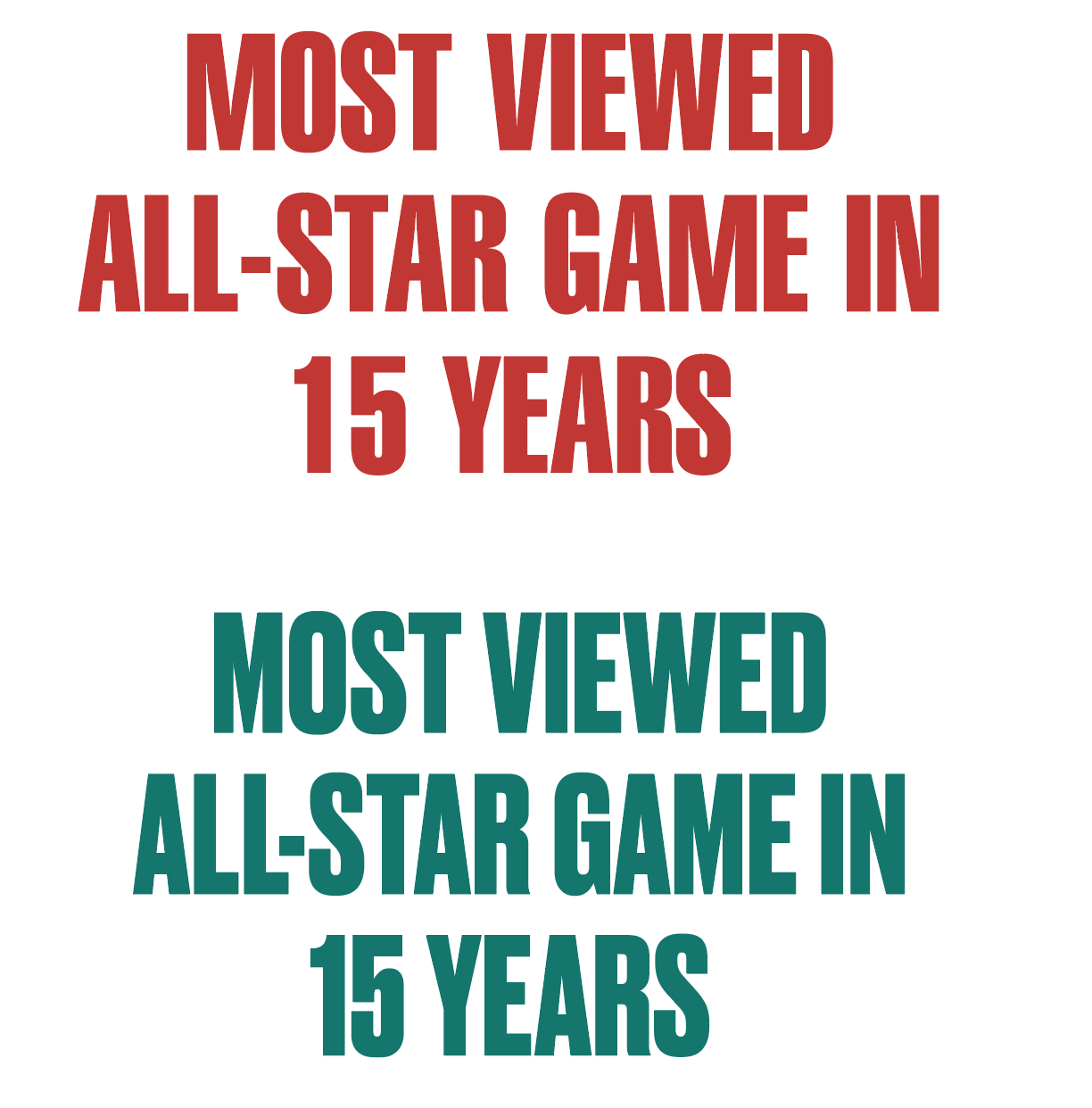
Have been looking for a font that I just can’t find anywhere. It’s mostly used for Instagram News Posts for example like @bleacherreport
The font looks a lot like Bebas Neue except for the of the “G” beard, and it’s way more bolded.
I’ve also done a lot researchers and found out that
font called “Alternate Gotchic” actually has that letter G but just in time misses the Round Legged “R” which Bebas Neue and the font I’m looking for have.
I’ve tried everything and everywhere but it just seems like it’s nowhere to be published.